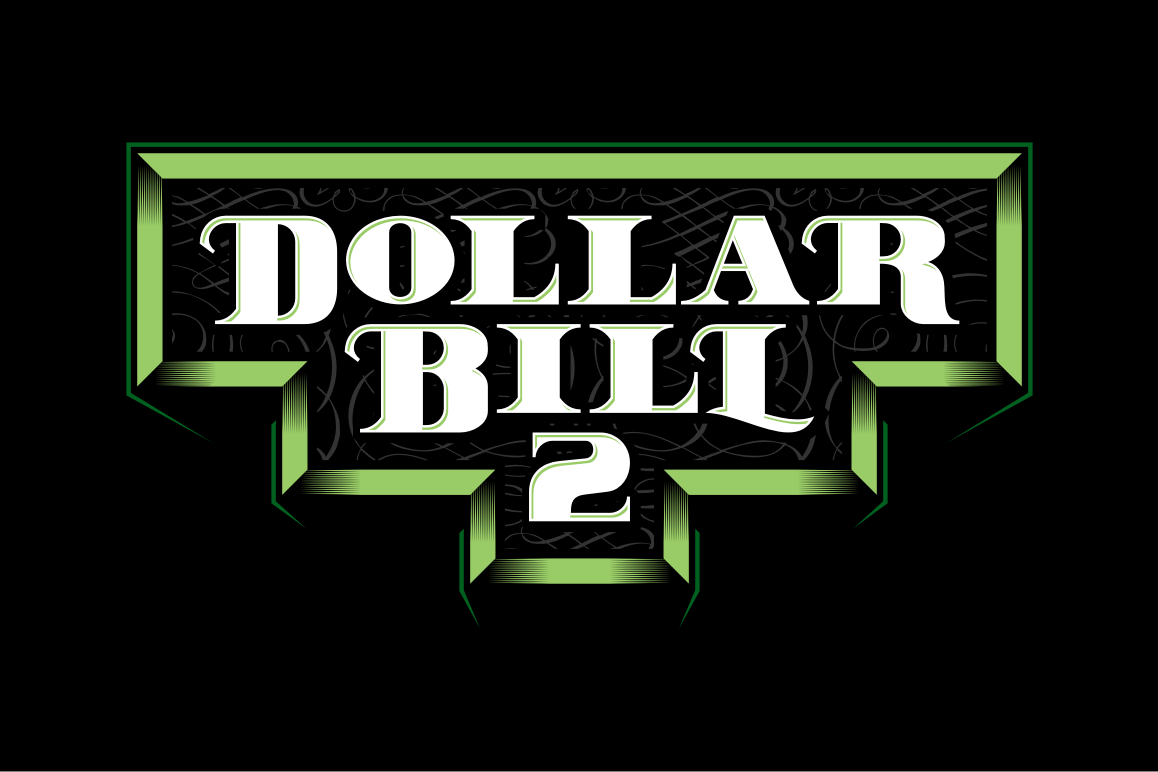
Dollar Bill 2
Dollar Bill 2 is a new and enhanced version of our previous Dollar Bill.
Unlike the first version that is all-caps font, we added upper case and
some OpenType features (alternate characters) on this new version (check
preview for details).
Suits best for almost all of your design needs; logos / logotypes, titles, vintage / classic themed or even a space filler.